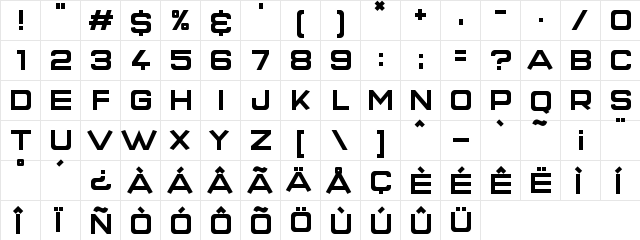
Super Quick Formula Regular
Design Context for Super Quick Formula Typeface
Super Quick Formula is a composed and adaptable typeface that performs quietly and consistently across a wide range of design contexts.